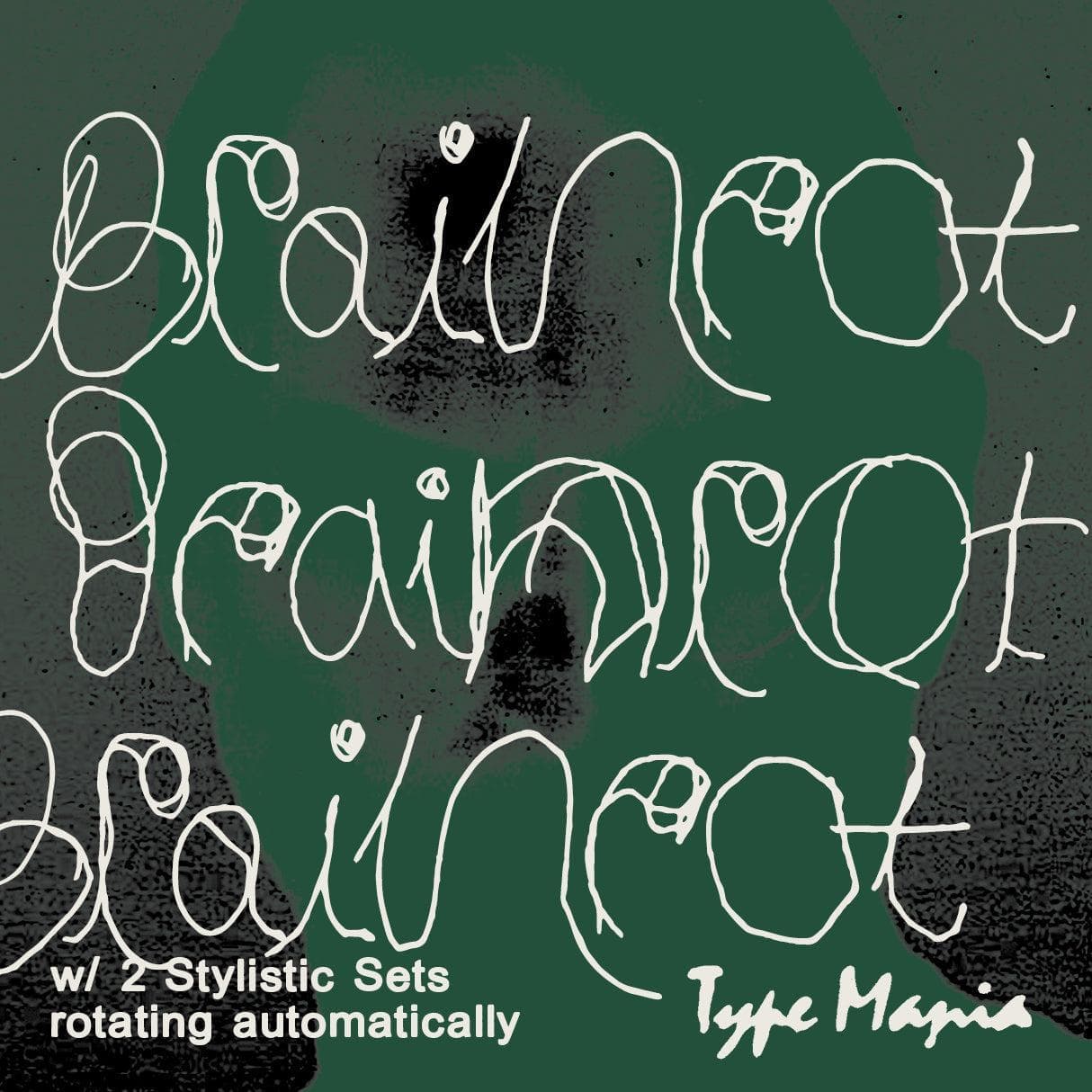
<p>For bad moods and good designs 💆 <strong>Brainrot TM</strong> – the meltdown esthete's choice 💅💅</p> <p><strong>Zip includes</strong></p> <ul> <li>OTF file</li> <li>TTF file</li> <li>WOFF2 file</li> </ul> <p><strong>OpenType features</strong></p> <ul> <li>2 stylistic sets</li> <li>The font is programmed to automatically shift between the stylistic sets</li> </ul> <p><strong>Languages</strong></p> <ul> <li>Basic Latin</li> <li>Western European</li> <li>Euro</li> <li>Central European</li> <li>Pan African Latin</li> </ul> <p><em>Graphic Design is Easy (with Type Mania)®</em></p>